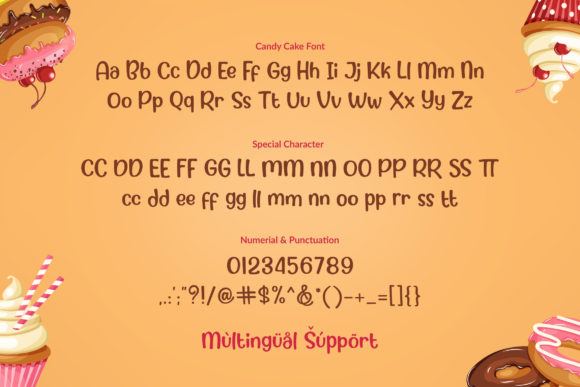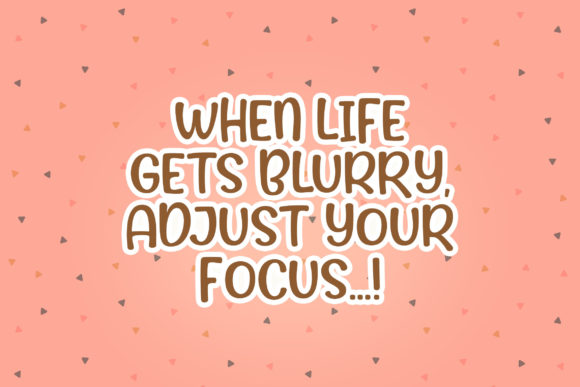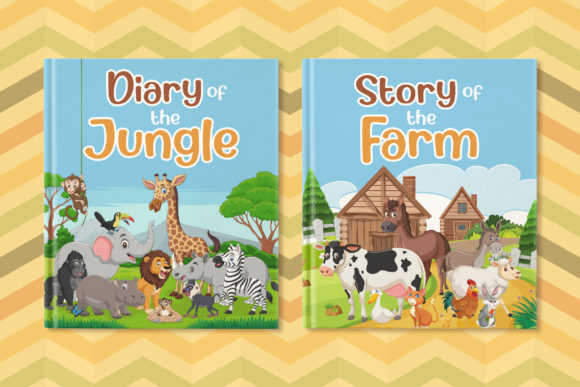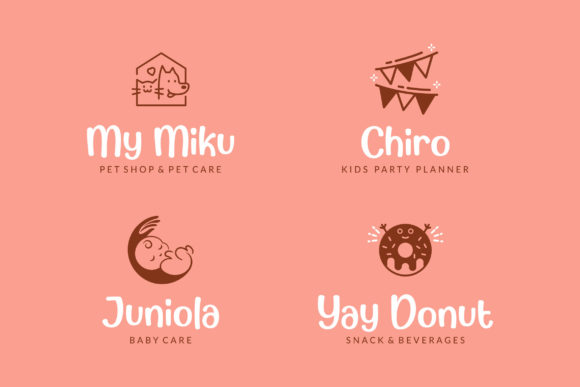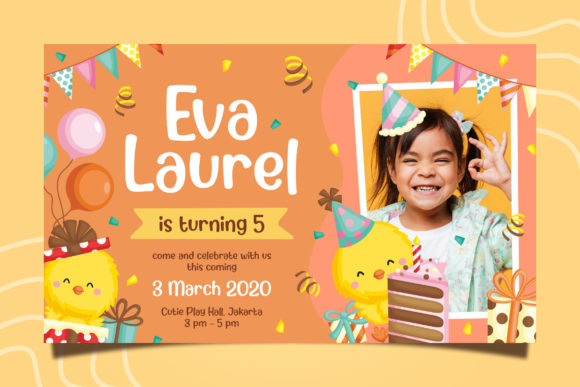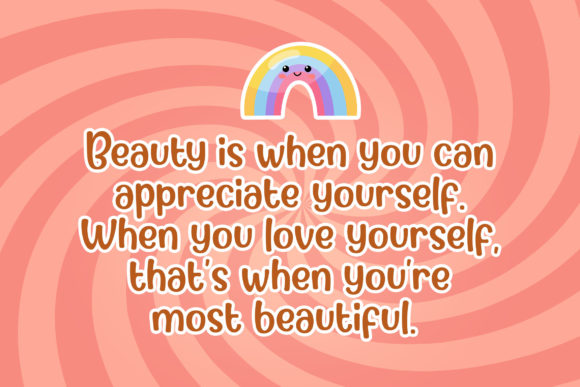
Introduction to Candy Cake Font
Remember that moment when you were brainstorming ideas for your next design project and you stumbled upon the perfect font? For designers, finding the right font can make all the difference in bringing a concept to life. It’s a moment of pure excitement and anticipation, and it’s exactly what happens when you discover the Candy Cake Font.
This adorable display font is a game-changer for any creative project. With its high-quality design and transparent background, it’s a valuable addition to any designer’s toolkit. Whether you’re working on a fun children’s book, a sweet dessert brand, or a playful advertisement, the Candy Cake Font is the perfect resource to bring a touch of whimsy and fun to your design.
Key Features of Candy Cake Font
- High-quality design resource ideal for creative projects, such as baking and dessert-themed illustrations.
- Features a transparent background, allowing for easy customization and integration into various design elements.
- Includes a large character set, with over 100 glyphs, making it suitable for various text-based applications.
- Designed with a playful and whimsical style, perfect for adding a touch of sweetness to any creative project.
Honest Review: Candy Cake Font
I recently came across the Candy Cake Font, a free download that caught my eye. As a designer, I’m always on the lookout for high-quality design resources to elevate my creative projects.
- ✨ The font has a beautiful, playful design that’s perfect for birthday parties, weddings, or any other celebration.
- ✨ The transparent background makes it easy to customize and layer over different backgrounds.
- ✨ The font is highly legible, even at small sizes, making it suitable for a variety of applications.
- ⚠️ The font is only available in a few weights and styles, which may limit its versatility in certain projects.
- ⚠️ The font’s design is quite ornate, which may not be suitable for more minimalist or corporate designs.
Overall, I think the Candy Cake Font is a great addition to any designer’s toolkit. While it may have some limitations, its unique design and high-quality appearance make it a valuable resource for creative projects. With a little creativity, you can use this font to add a pop of personality to your designs.
The Candy Cake Font is a versatile design resource suitable for various creative projects, including invitations, social media graphics, and blog posts. To get the most out of it, use it in conjunction with other high-quality design elements, such as illustrations or graphics. Some common use cases include:
- Wedding invitations and party decorations
- Social media graphics and promotional materials
- Food and beverage branding